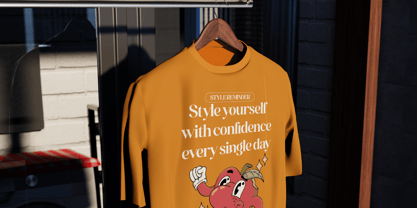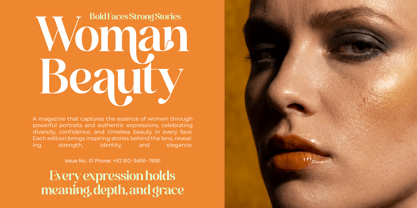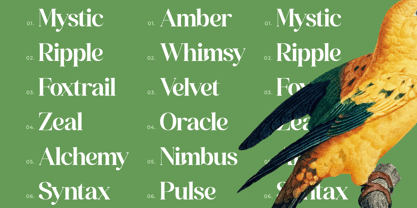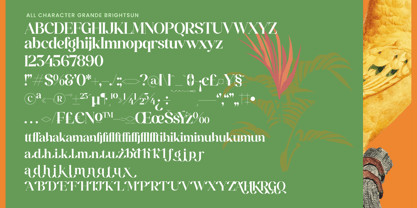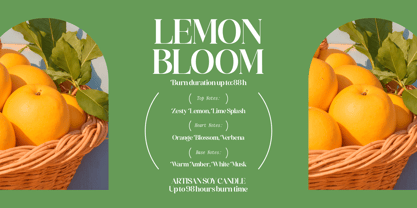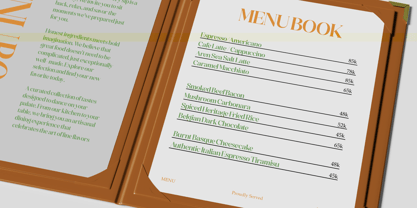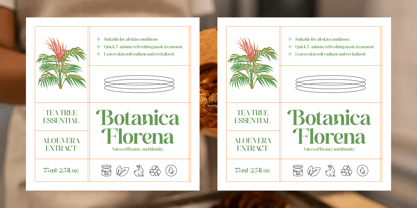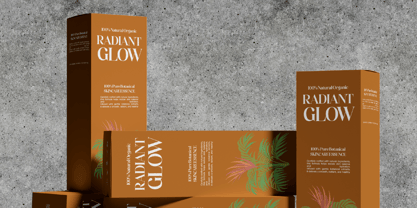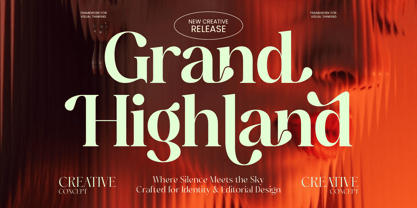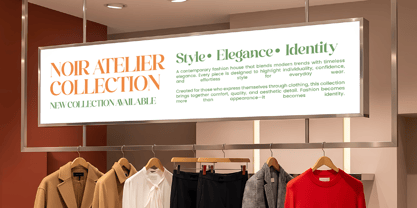
Grand Highland
by Timelesstype Studio
The Grand Highland Font Family was designed by Heru Utama Putra and published by Timelesstype Studio. Grand Highland contains 2 styles and family package options. More about this family
Grand Highland – Modern Serif Font is a masterpiece of high-contrast design, blending sharp serifs with graceful, flowing curves. This premium typeface captures a contemporary aesthetic that is both bold and inviting, making it the definitive choice for designers who refuse to compromise on style or substance.
Experience the perfect harmony of fluid motion and structural precision through an extensive library of features. With 414 total glyphs, including 22 unique ligatures and 62 stylistic alternates, Grand Highland – Modern Serif Font offers endless creative possibilities for custom layouts. Whether utilizing the Regular or Italic styles, this versatile font provides the tools necessary to craft visually stunning compositions that resonate with a high-end audience.